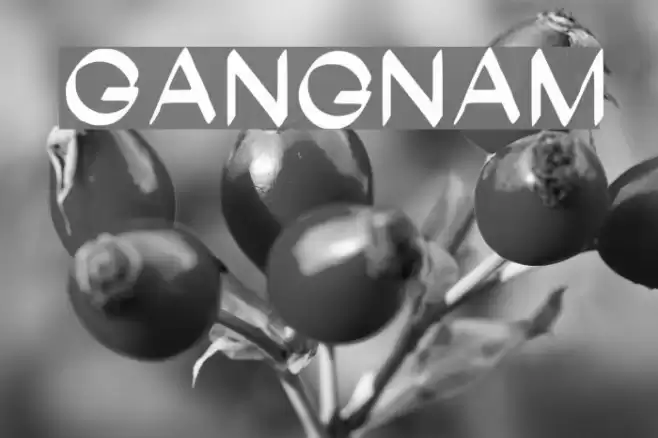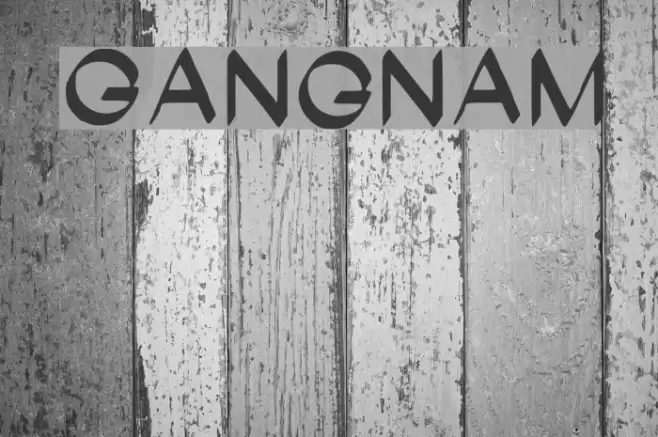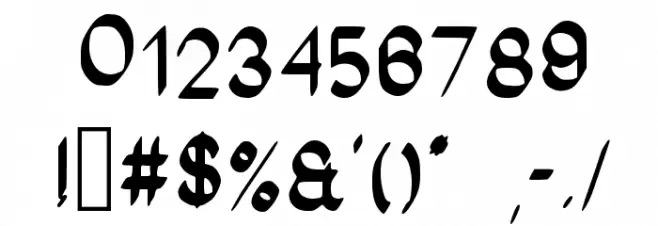
Gangnam Font
Gangnam Description
This font features a bold and modern design with geometric influences. The characters are constructed with sharp angles and clean lines, giving it a futuristic and edgy appearance. The uppercase letters are particularly striking, with some characters incorporating unique cutouts and slashes that add to the overall dynamic feel. The numbers and special characters maintain this bold style, ensuring consistency across all glyphs. The font's design is both eye-catching and versatile, making it suitable for a variety of creative applications.
A bold, modern font with geometric and edgy design elements from Uncategorized fonts.